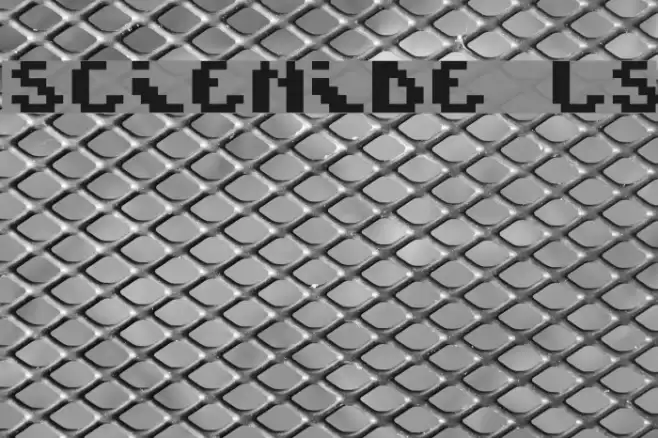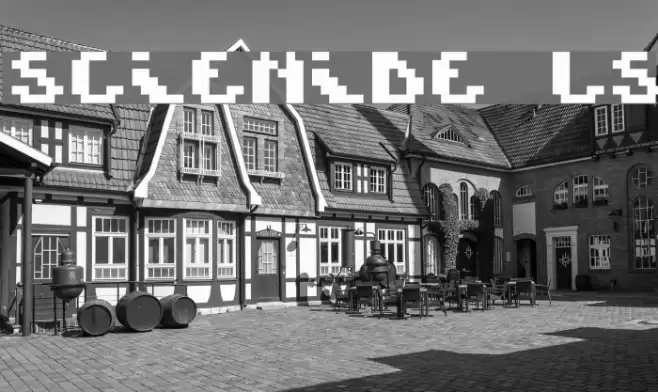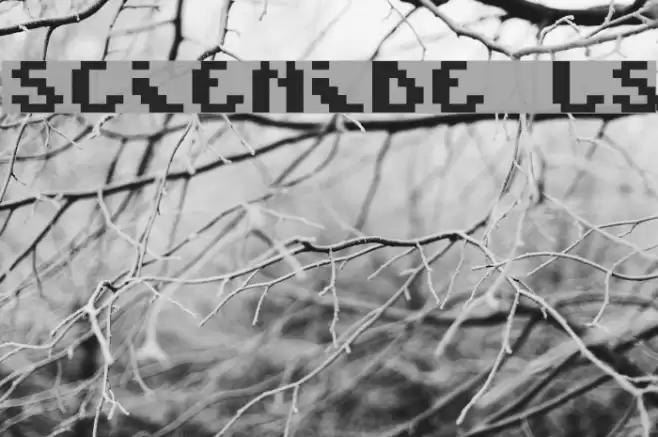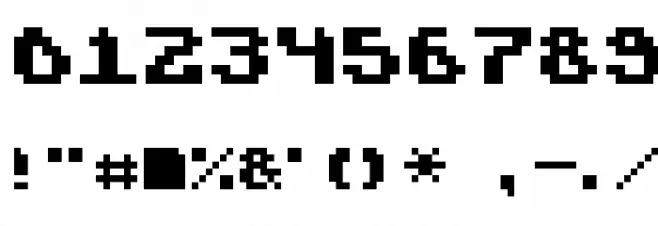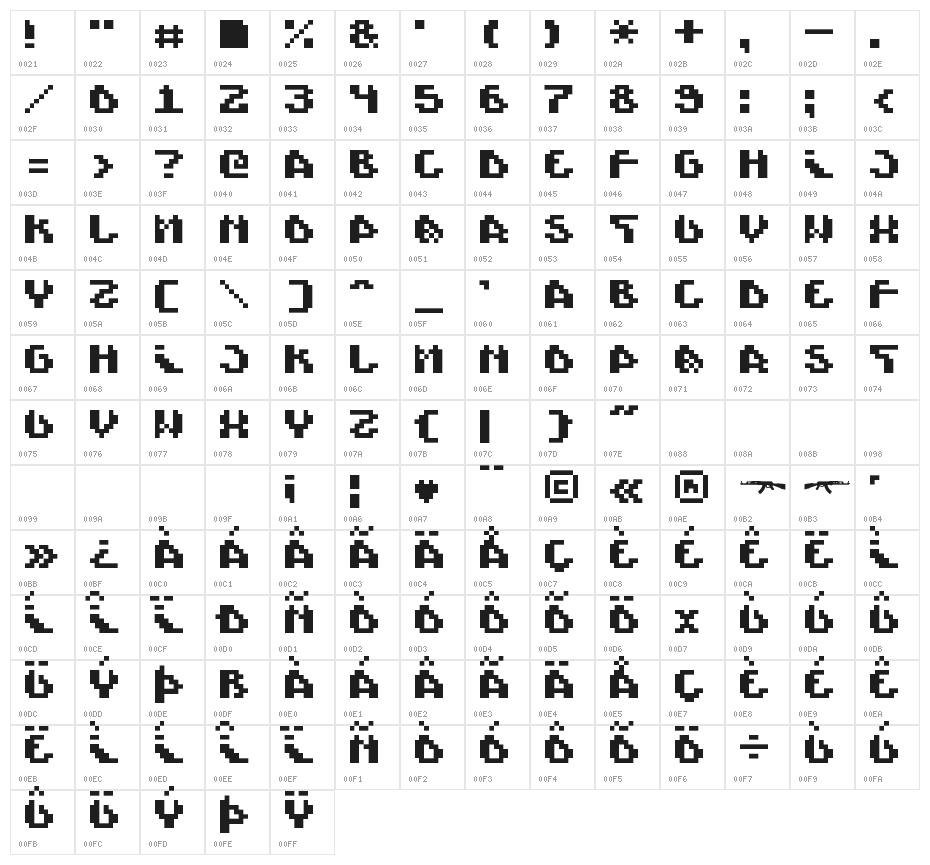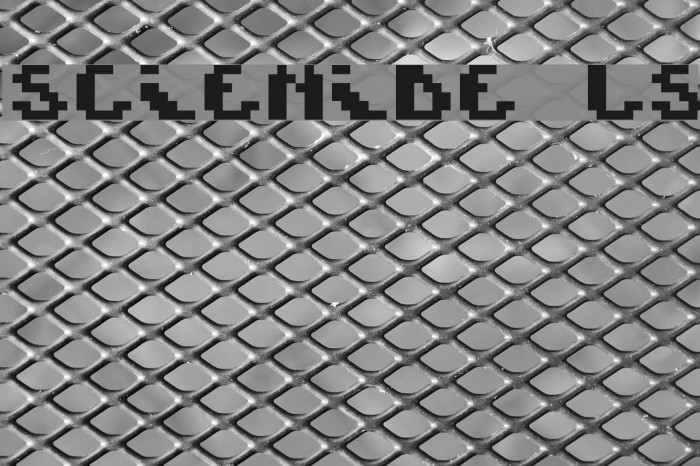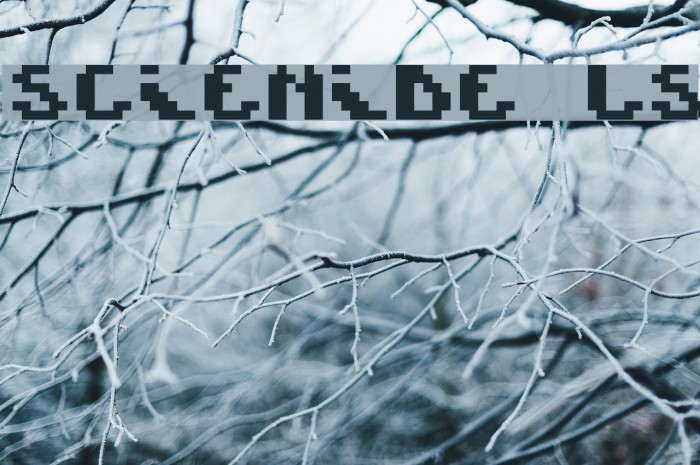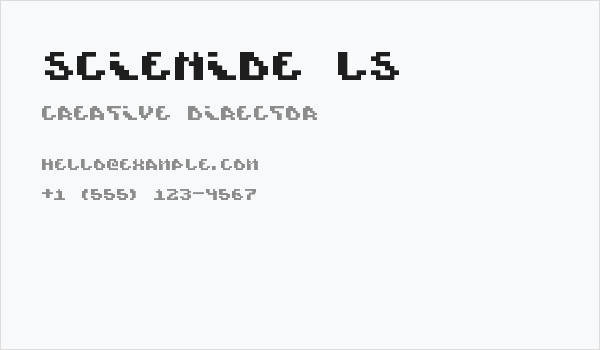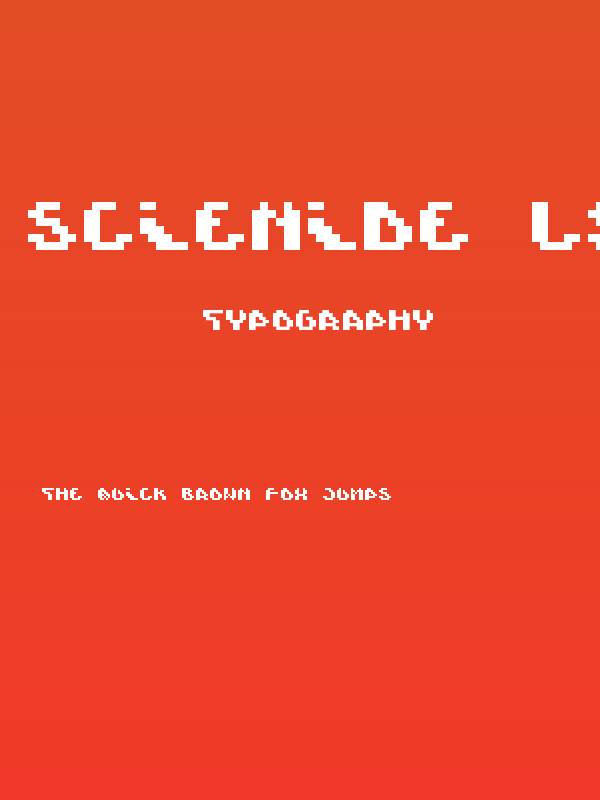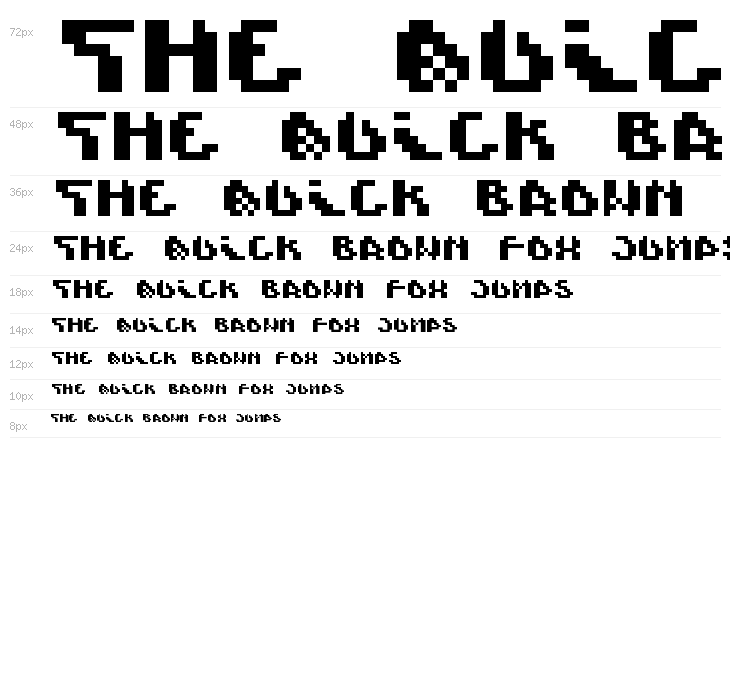
Scienide LS Font
Scienide LS Description
This font features a bold, pixelated design reminiscent of early digital and arcade aesthetics. Each character is constructed with a blocky, grid-like pattern, giving it a distinctly retro and technological feel. The uppercase and lowercase letters maintain a consistent height, emphasizing uniformity and simplicity. Numbers and special characters follow the same pixelated style, ensuring a cohesive look across all glyphs. The font's design is straightforward, with no curves or embellishments, focusing on a minimalist, geometric approach that captures the essence of vintage computing.
- Proposed Projects: Ideal for video game design, retro-themed posters, digital art projects, and tech-related branding.
- Overall Style: Vintage